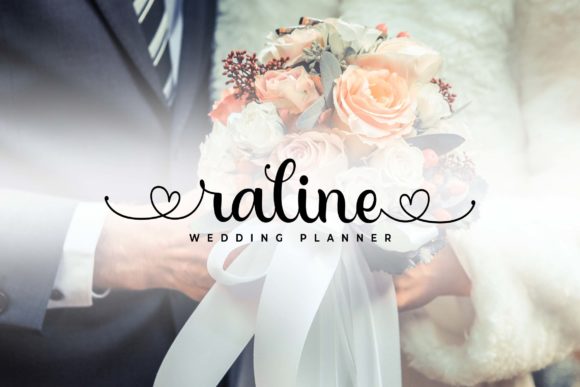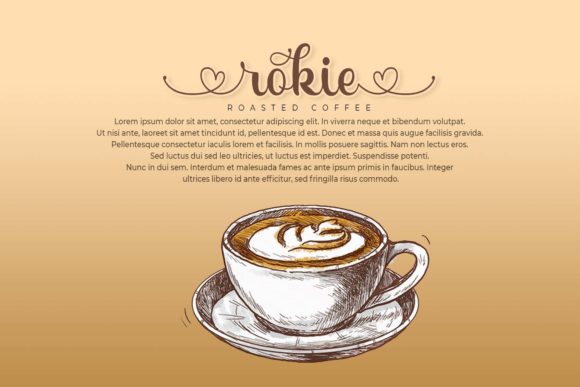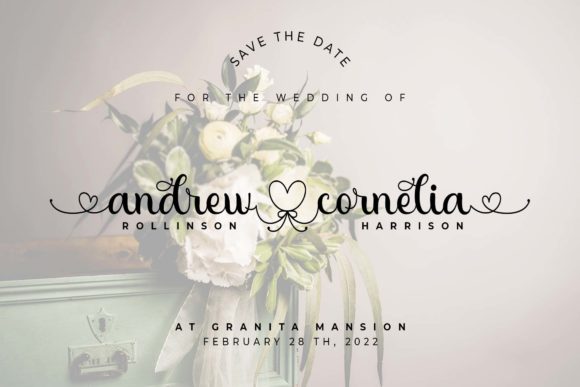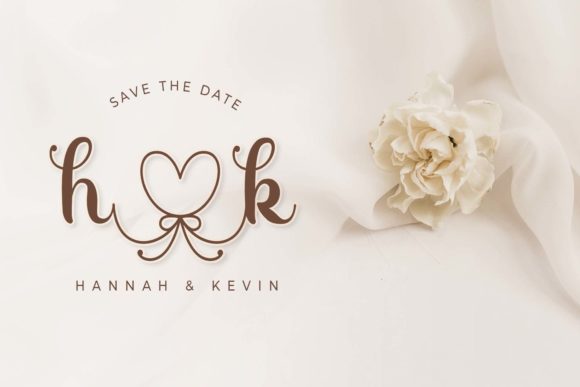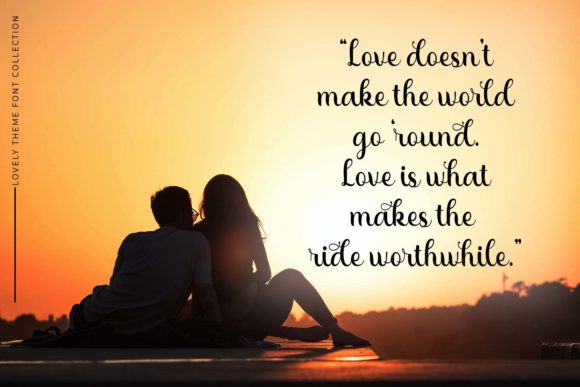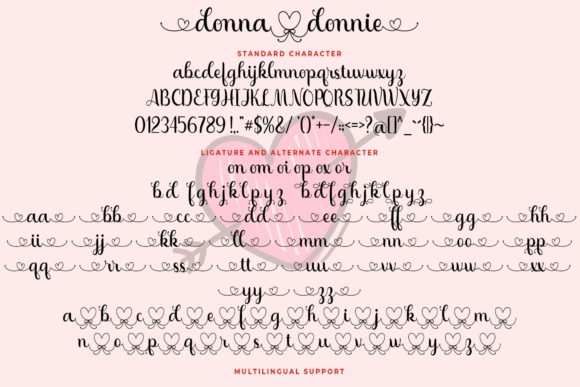
Discover the Charm of Donna Donnie Font: A Timeless Elegance for Your Designs
Are you a designer or crafter looking for a font that exudes chic, romance, and cuteness? Look no further than the Donna Donnie font. This beautiful font combines timeless elegance with authentic calligraphy, making it perfect for a wide range of design projects. In this article, we’ll dive into the features and benefits of the Donna Donnie font, and explore how it can elevate your designs.
What is Donna Donnie Font?
Donna Donnie is a stunning script font that boasts a unique blend of classic sophistication and modern charm. Its elegant lines, beautiful swashes, and intricate details make it an ideal choice for designers and crafters seeking to add a touch of luxury to their work. Whether you’re creating wedding invitations, branding materials, or digital content, Donna Donnie is sure to impress.
Key Features of Donna Donnie Font
- PUA Encoded: The Donna Donnie font is PUA (Private Use Area) encoded, which means you can easily access all the glyphs and swashes with ease. This feature allows you to unlock the full potential of the font and experiment with different design elements.
- Timeless Elegance: Donna Donnie’s classic design ensures that your work will stand the test of time. Its elegant lines and sophisticated style make it perfect for creating high-end designs that exude luxury and refinement.
- Authentic Calligraphy: The font’s authentic calligraphy style adds a touch of warmth and personality to your designs. Its beautiful swashes and flourishes make it ideal for creating eye-catching headlines, titles, and quotes.
- Chic, Romantic, and Cute: Donna Donnie’s unique blend of styles makes it perfect for a wide range of design projects, from wedding and event planning to fashion and lifestyle branding.
Benefits of Using Donna Donnie Font
So why choose Donna Donnie font for your design projects? Here are just a few benefits of using this beautiful font:
- Versatile: The font’s versatility makes it perfect for a wide range of design projects, from digital content to print materials.
- High-Quality: The Donna Donnie font is of exceptionally high quality, ensuring that your designs look professional and polished.
- Unique: The font’s unique blend of styles ensures that your designs will stand out from the crowd and capture the attention of your audience.
Design Ideas Using Donna Donnie Font
Donna Donnie font is perfect for a wide range of design projects. Here are a few ideas to get you started:
- Wedding Invitations: Use Donna Donnie to create beautiful, elegant wedding invitations that set the tone for a special day.
- Branding Materials: The font’s sophisticated style makes it perfect for creating high-end branding materials, such as logos, business cards, and letterheads.
- Digital Content: Use Donna Donnie to add a touch of elegance to your digital content, such as blog posts, social media graphics, and email newsletters.
- Stationery: The font’s classic design makes it perfect for creating beautiful stationery, such as notebooks, journals, and greeting cards.
In conclusion, the Donna Donnie font is a beautiful, versatile, and elegant script font that is perfect for designers and crafters seeking to add a touch of luxury to their work. Its timeless elegance, authentic calligraphy, and PUA encoding make it an ideal choice for a wide range of design projects. Whether you’re creating wedding invitations, branding materials, or digital content, Donna Donnie is sure to impress. So why not give it a try and see the difference it can make in your designs?